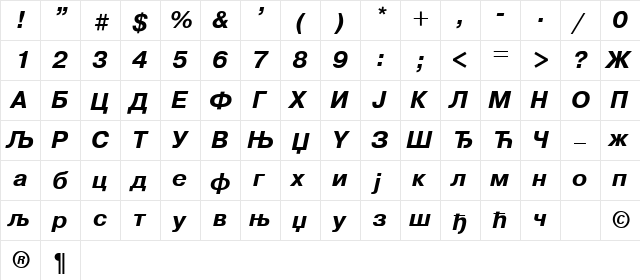
Helvetica-Cirilica Bold Italic
Design Context for Helvetica-Cirilica Typeface
Helvetica-Cirilica offers clean, dependable letterforms without strong stylistic allegiance, making it a practical choice for designers who need flexibility. The dynamic lean of this cut emphasises speed and emphasis in any layout. Its bold stroke weight gives it real presence on the page.
Pro Tip: Use Helvetica-Cirilica for emphasis, pull quotes, and subheadings where its slanted energy can add rhythm to the layout.